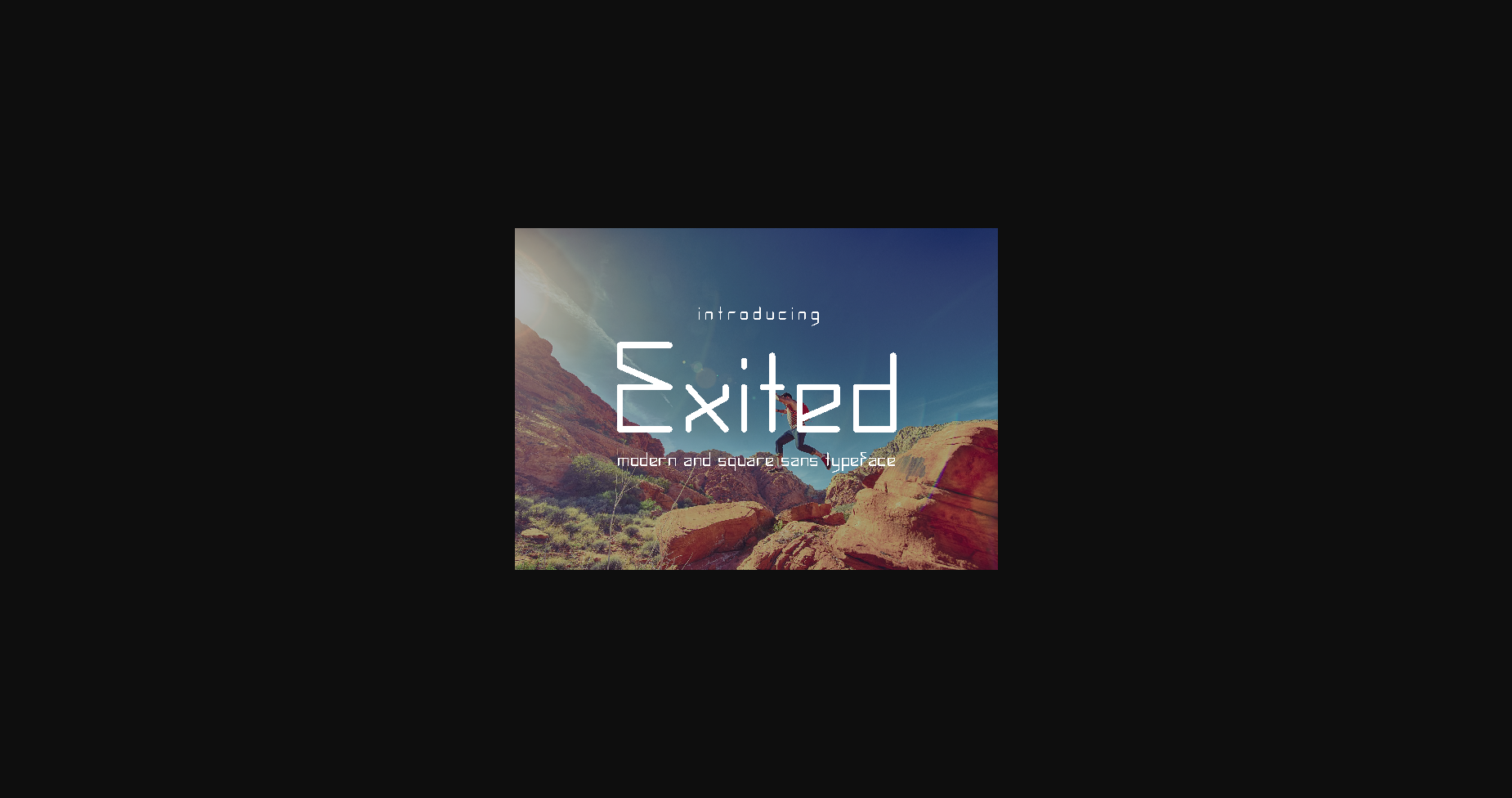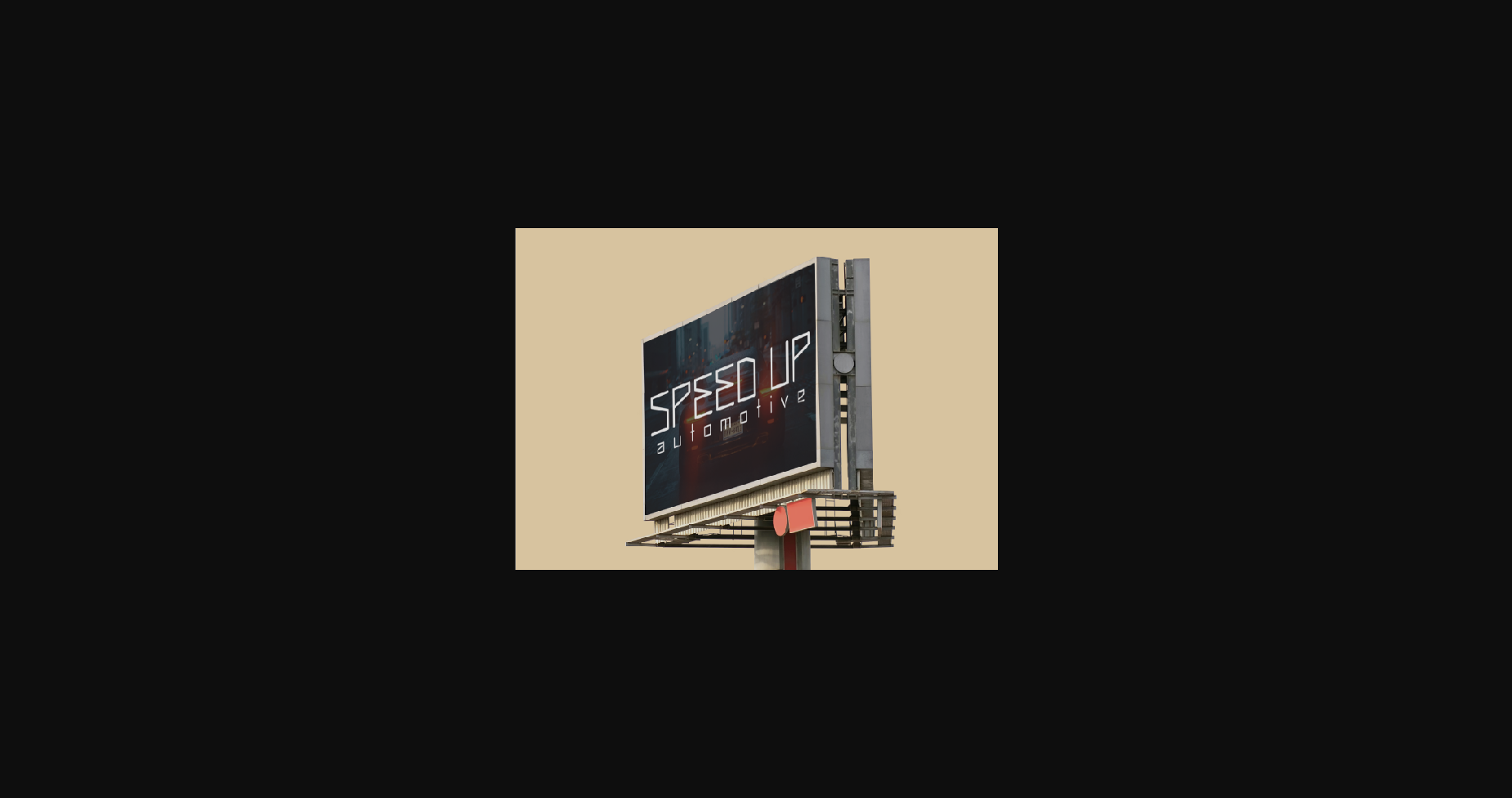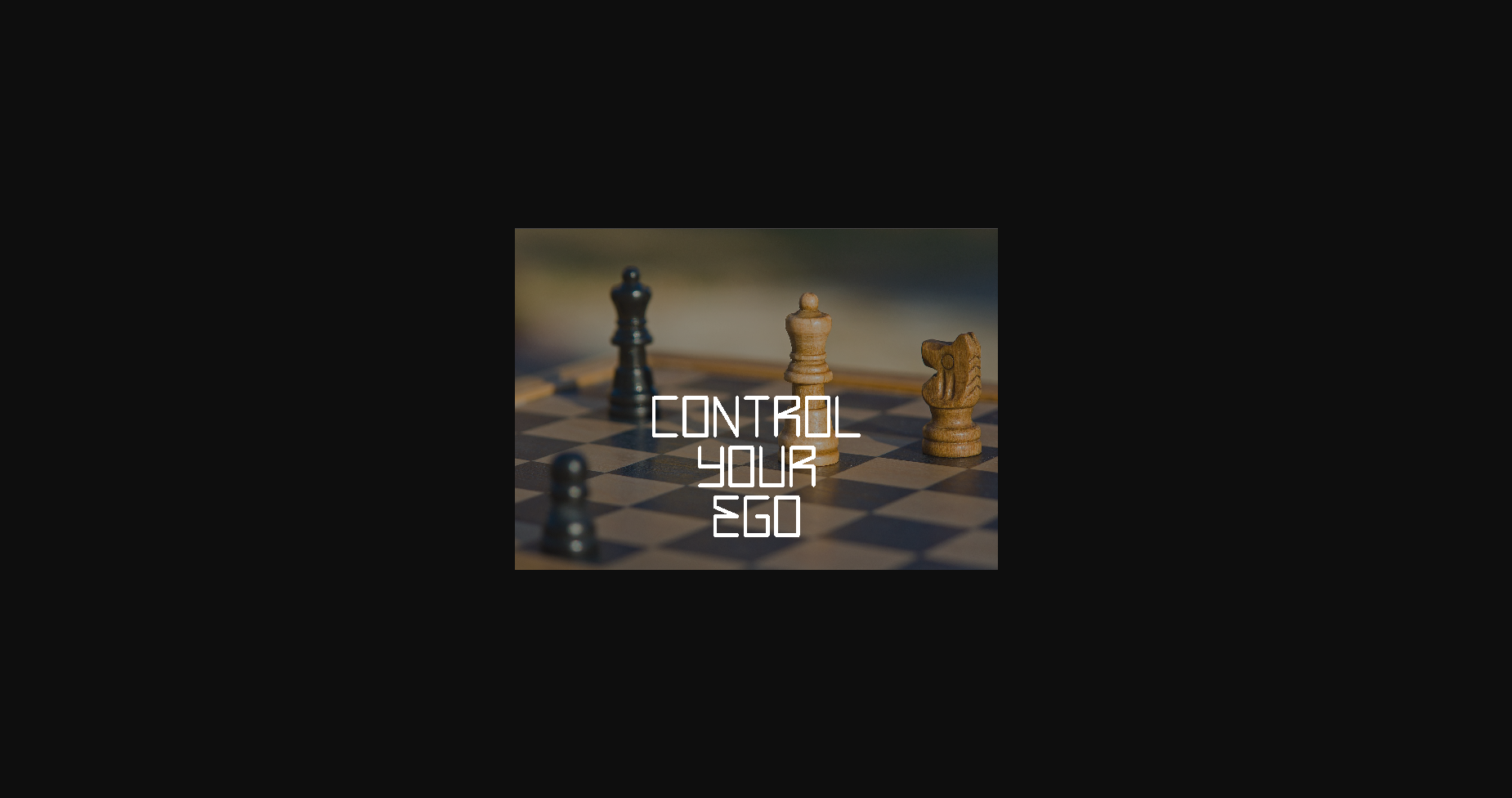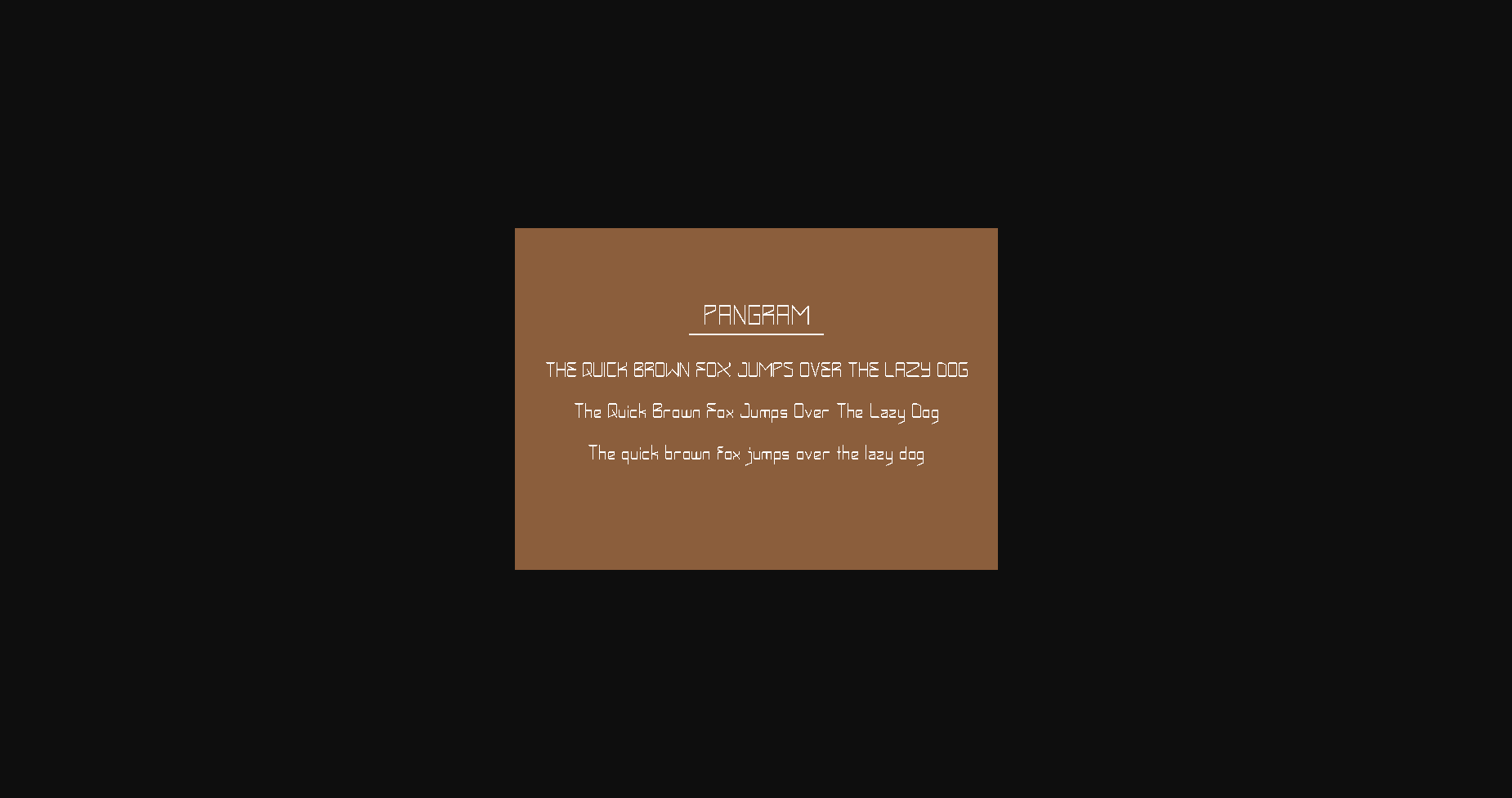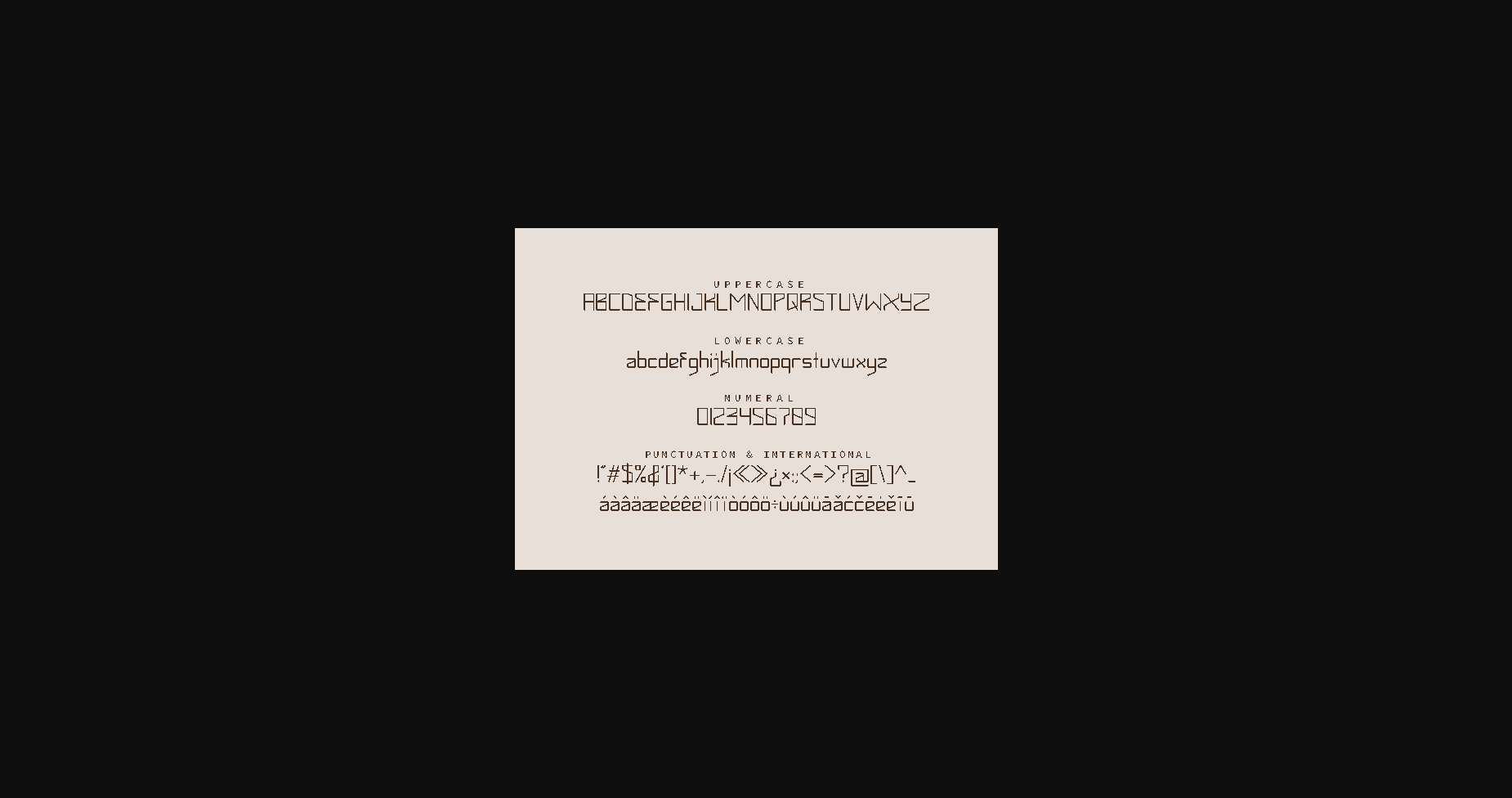
Exited Font
About Exited Font
Exited is an incredibly unique sans serif font. Masterfully designed to become a true favorite, this font has the potential to bring each of your creative ideas to the highest level!